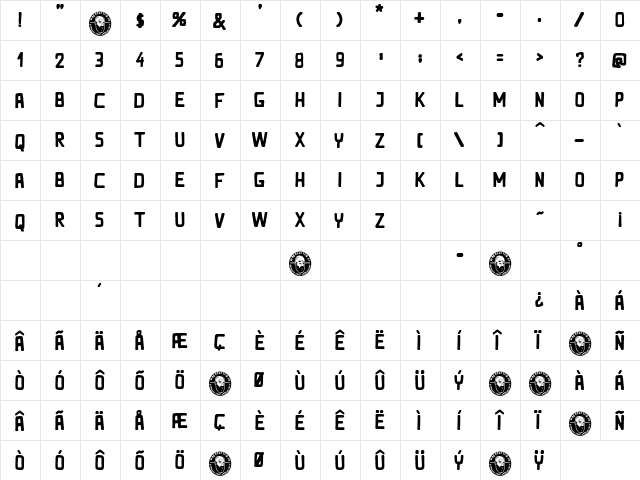
Rocking Bunny Regular Font Preview
Rocking Bunny Regular
Rocking Bunny Regular Font Details
| Designer | Woodcutter Manero |
Design Context for Rocking Bunny Typeface
Rocking Bunny offers clean, dependable letterforms without strong stylistic allegiance, making it a practical choice for designers who need flexibility.